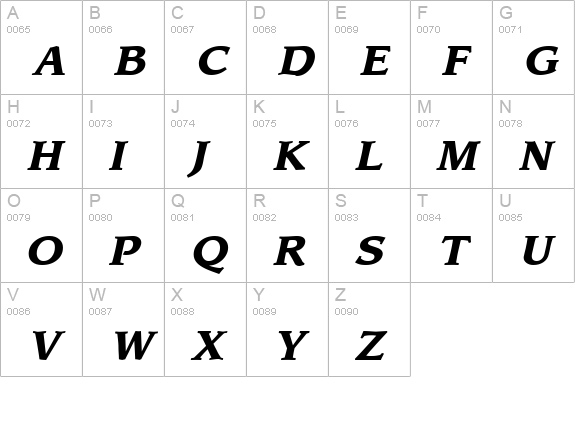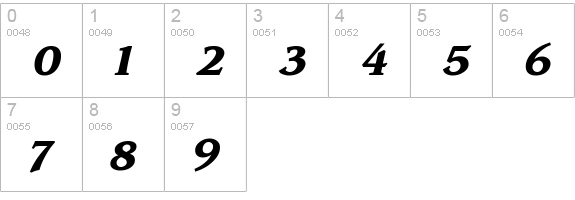
Leawood Bold Italic is a strong, high-contrast, italic variant in the Leawood typeface family \xE2\x80\x94 well suited to headlines, attention-grabbing titles, and strong calls-to-action.
Leawood Bold Italic font is a captivating and versatile typeface that seamlessly combines elegance with a touch of uniqueness. Its bold and italicized characters exude confidence and sophistication, making it the perfect choice for a variety of design projects. This font's carefully crafted curves and stylish letterforms effortlessly catch the eye and make a bold statement. Whether used for headlines, logos, banners, or any other design element, Leawood Bold Italic adds a touch of modernity and refinement. What sets Leawood Bold Italic font apart is its ability to effortlessly adapt to various design styles and themes. From sleek and minimalistic to edgy and artistic, this font can enhance any visual composition, adding a touch of visual interest and professionalism. But what truly makes Leawood Bold Italic font an exceptional choice is that it is freely available to download at FontsMarket.com. Yes, you heard it right! You can easily access and use this stunning font for your personal and commercial projects without any restrictions or fees. So, whether you are a graphic designer, a web developer, or an enthusiast looking to add a touch of elegance to your next project, Leawood Bold Italic font is the perfect choice. Its free availability ensures that you can create captivating designs without breaking the bank. Download Leawood Bold Italic font today from FontsMarket.com and unlock a world of design possibilities. Elevate your creations with this enchanting typeface and let it make a lasting impression on your audience.